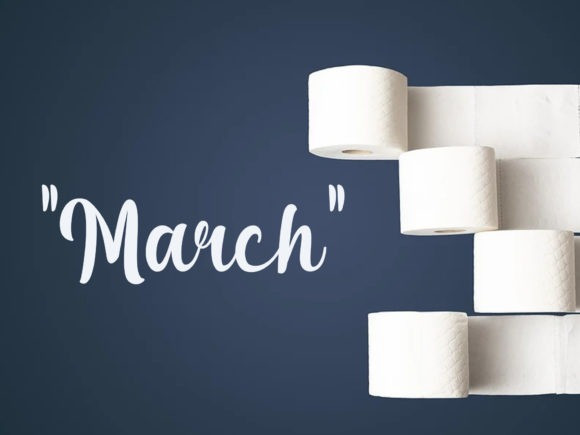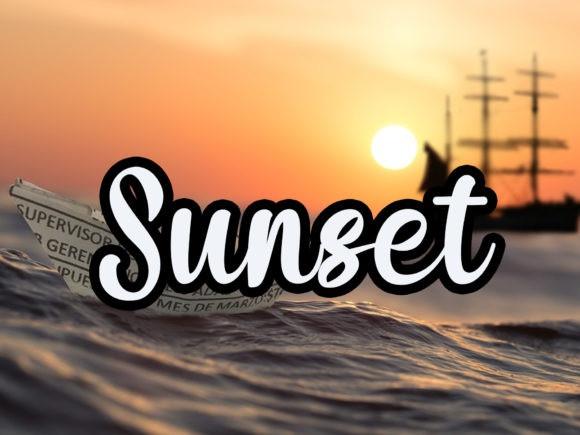
Krinkes Font Free Download
Krinkes Script Font Free Download, It can easily be matched to an incredibly large set of projects, so add it to your creative ideas and notice how it makes them stand out!
Use 0-9 for swashes. Example: Krinkes7